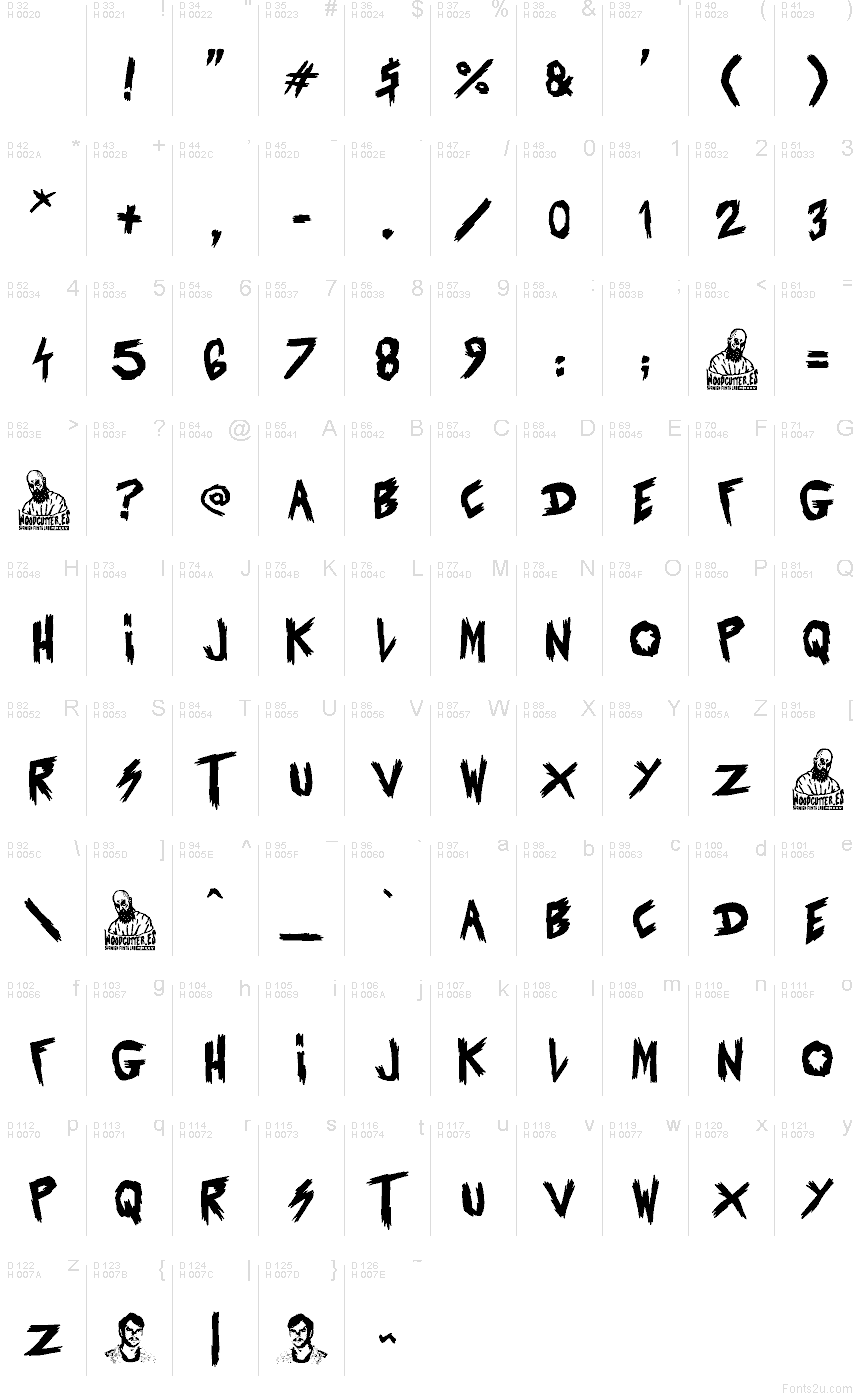
The Asesino
The Asesino font by Woodcutter is a free scary display typeface that looks like it’s been carved into the page with a shaking hand. Jagged strokes, torn edges, and smeared, inky silhouettes give each letter a slasher-movie intensity, while the rough rhythm keeps words feeling wild and unstable. It commands attention at large sizes, reading like a scream frozen in black.
Using The Asesino font, your titles instantly feel like forbidden VHS covers and midnight horror marathons. It works beautifully for Halloween posters, horror movie key art, haunted house signage, creepy game titles, YouTube thumbnails, and dark book covers. Pair this free font with a clean, neutral sans serif in small text to keep things readable while the main headline does all the terrifying.